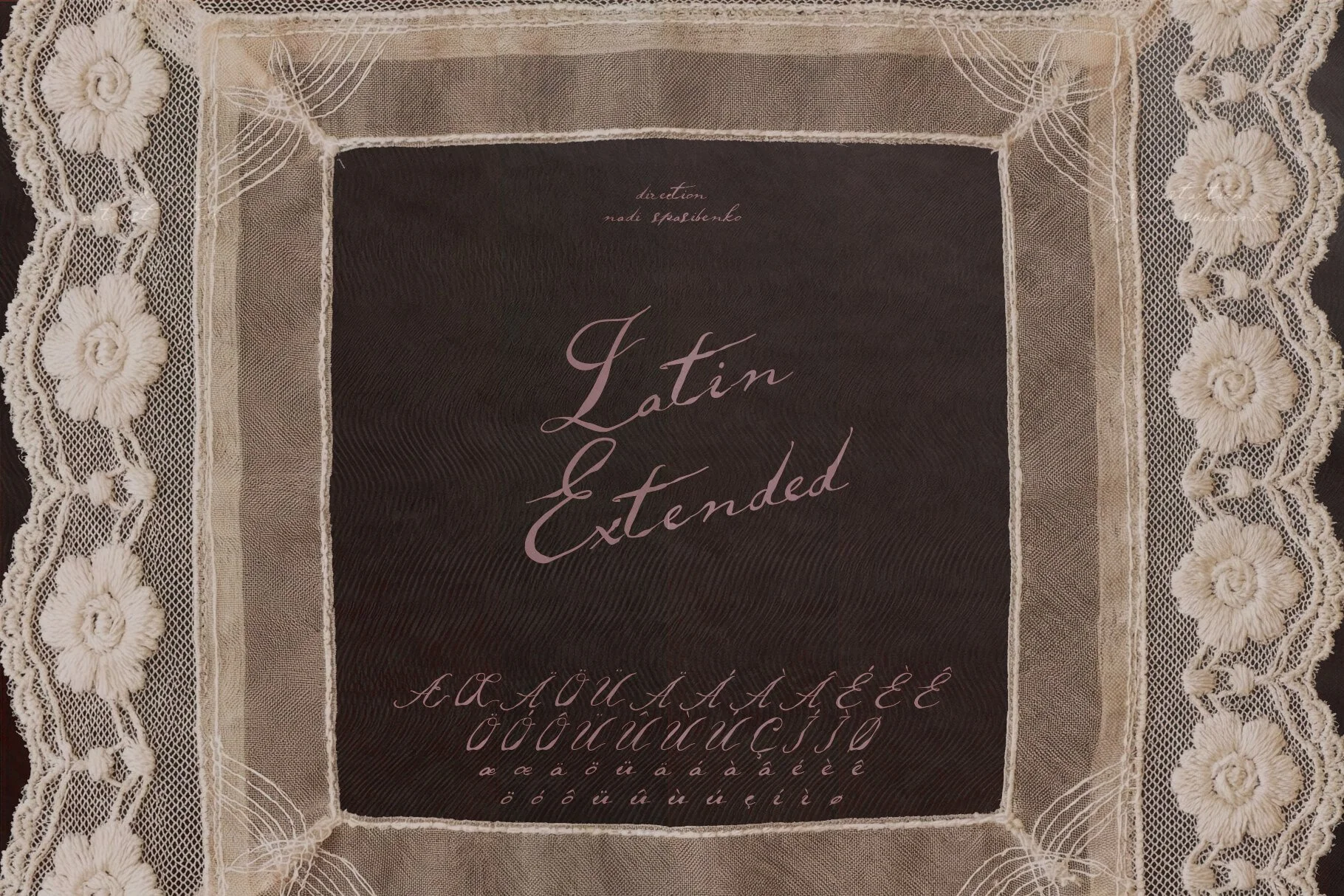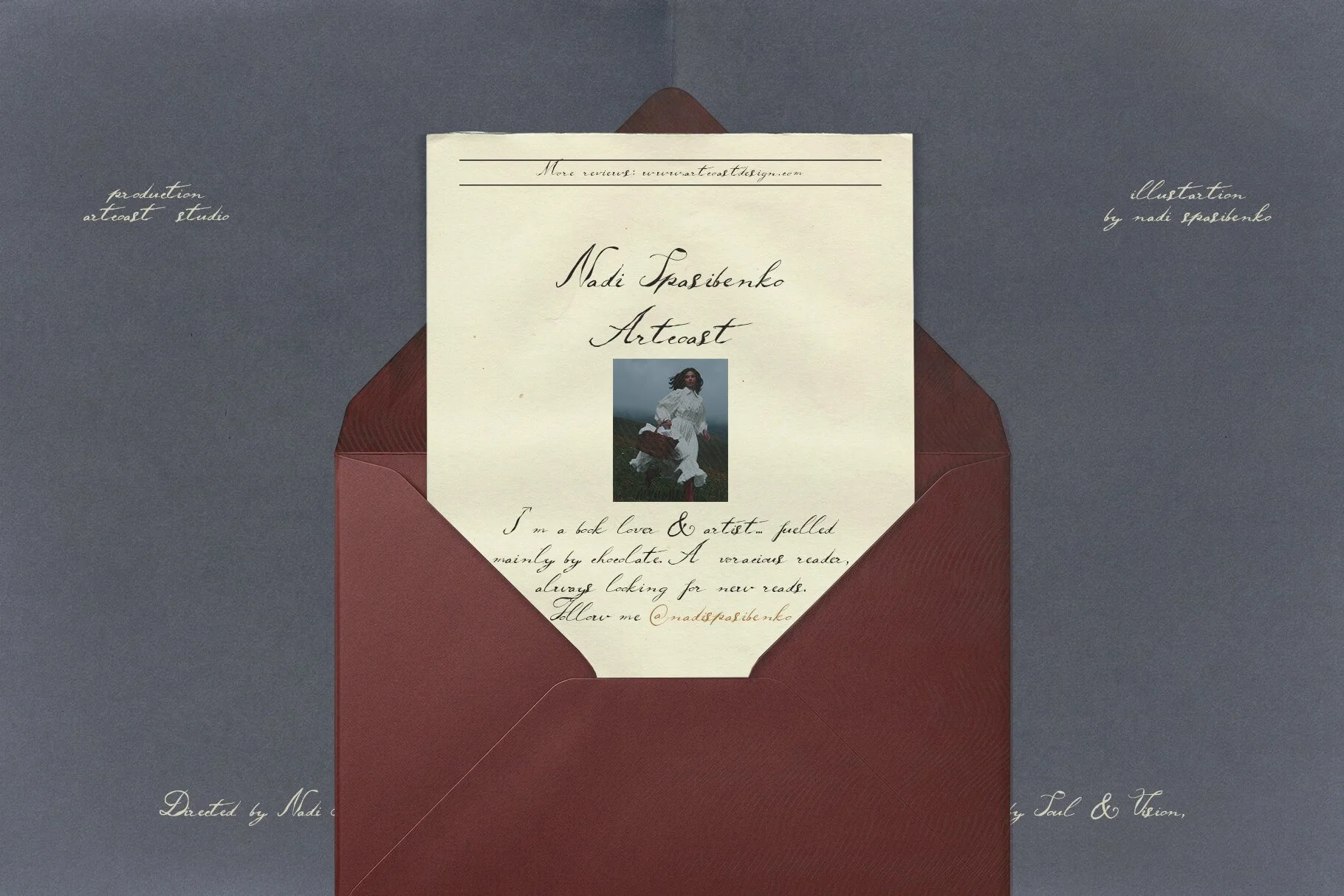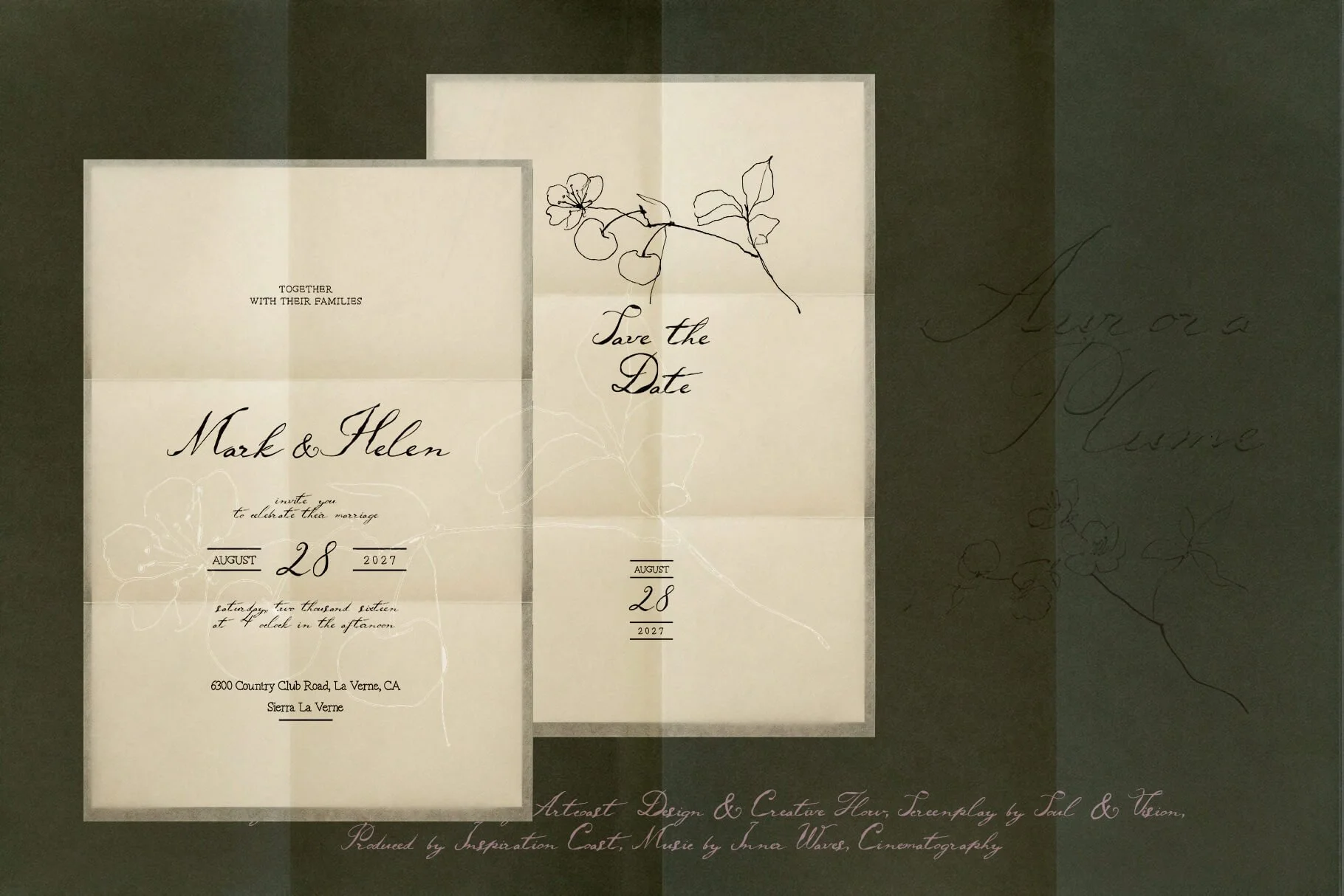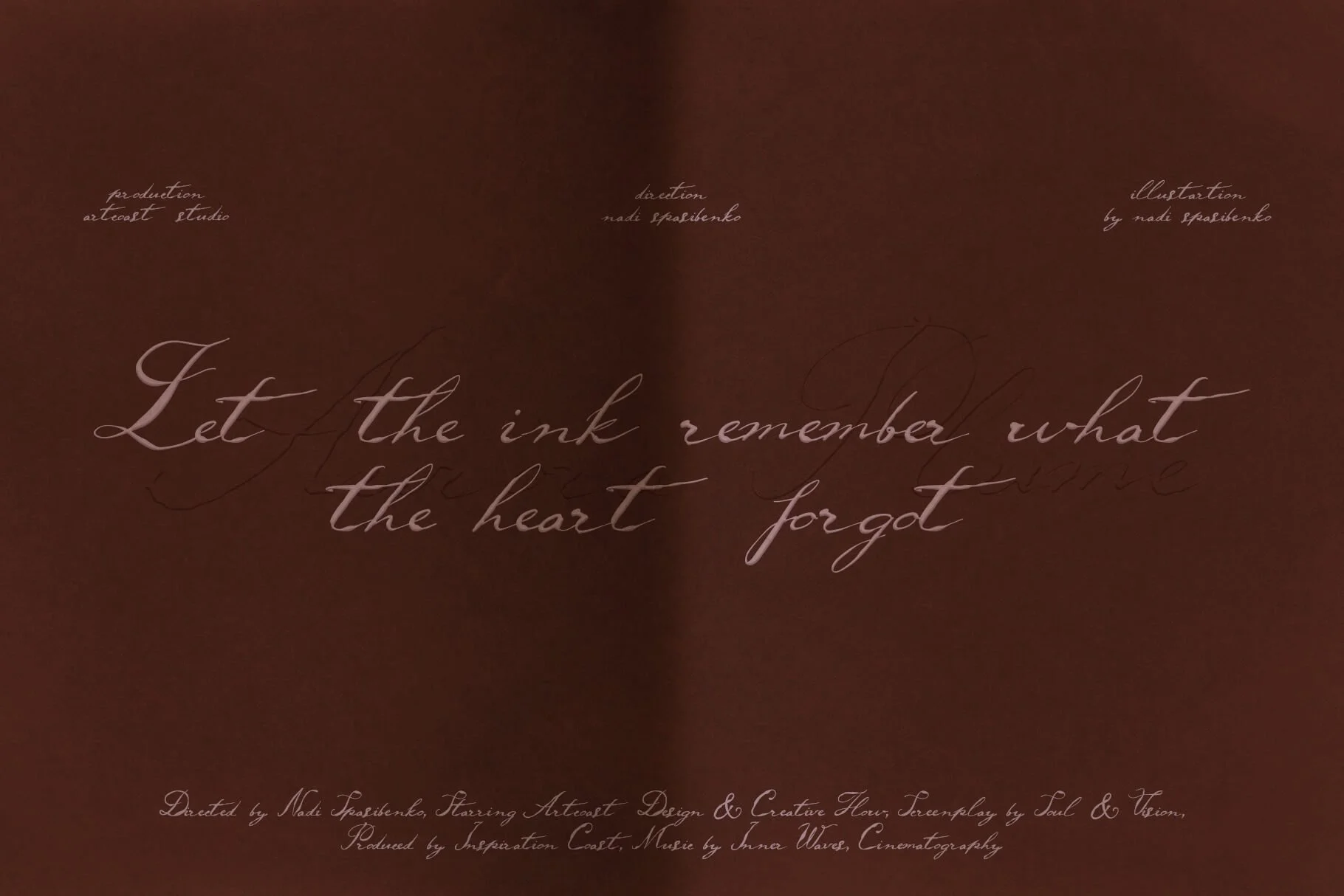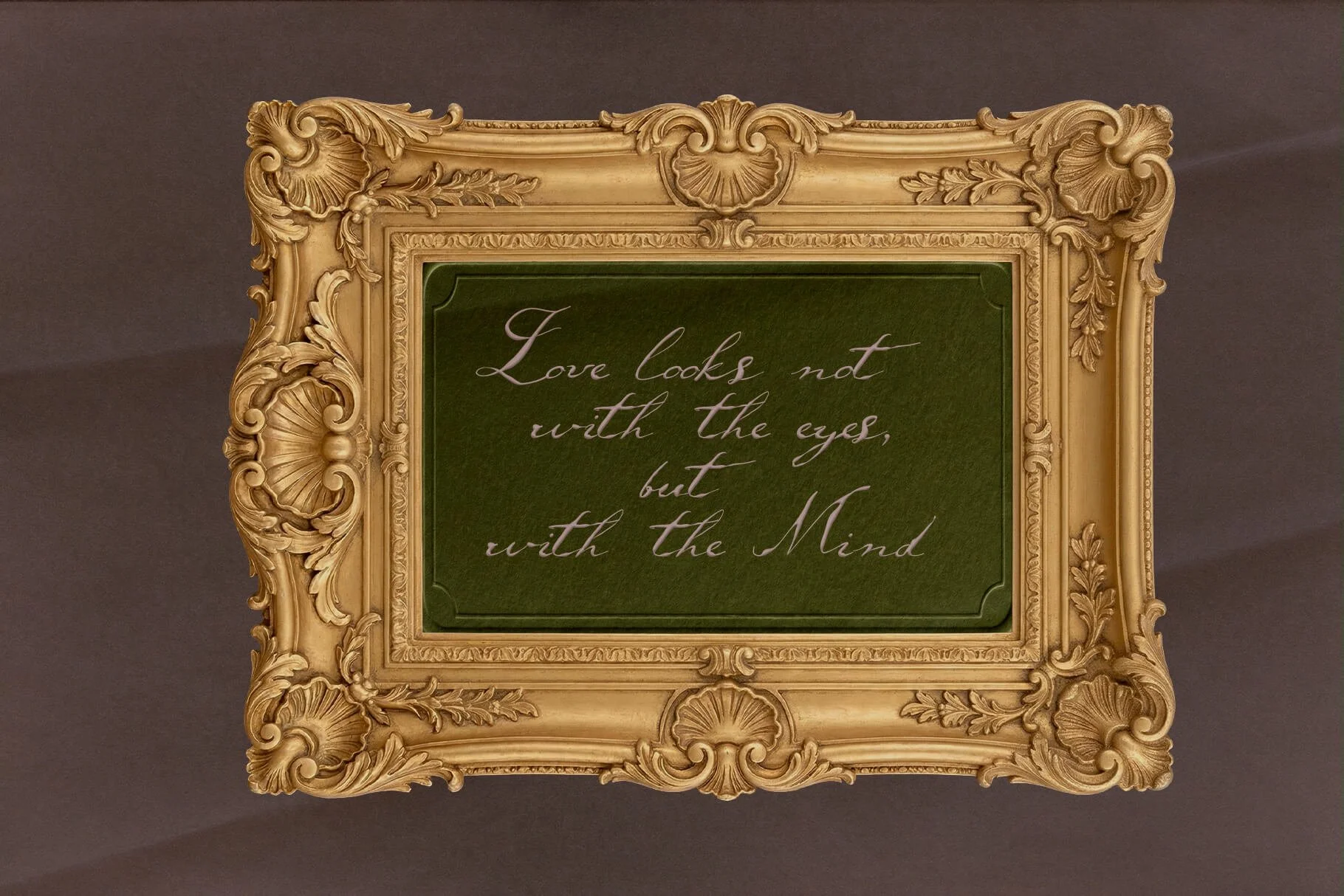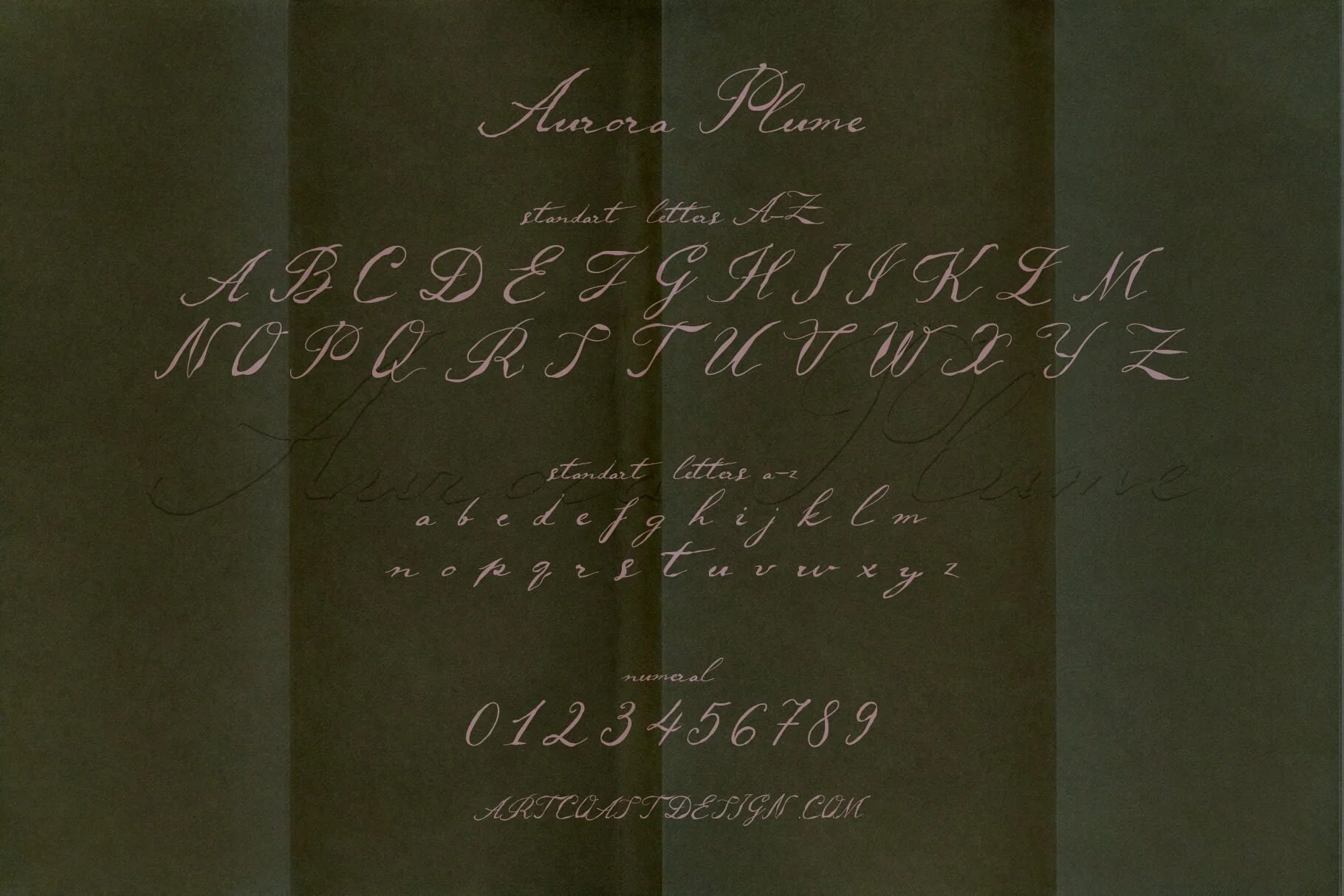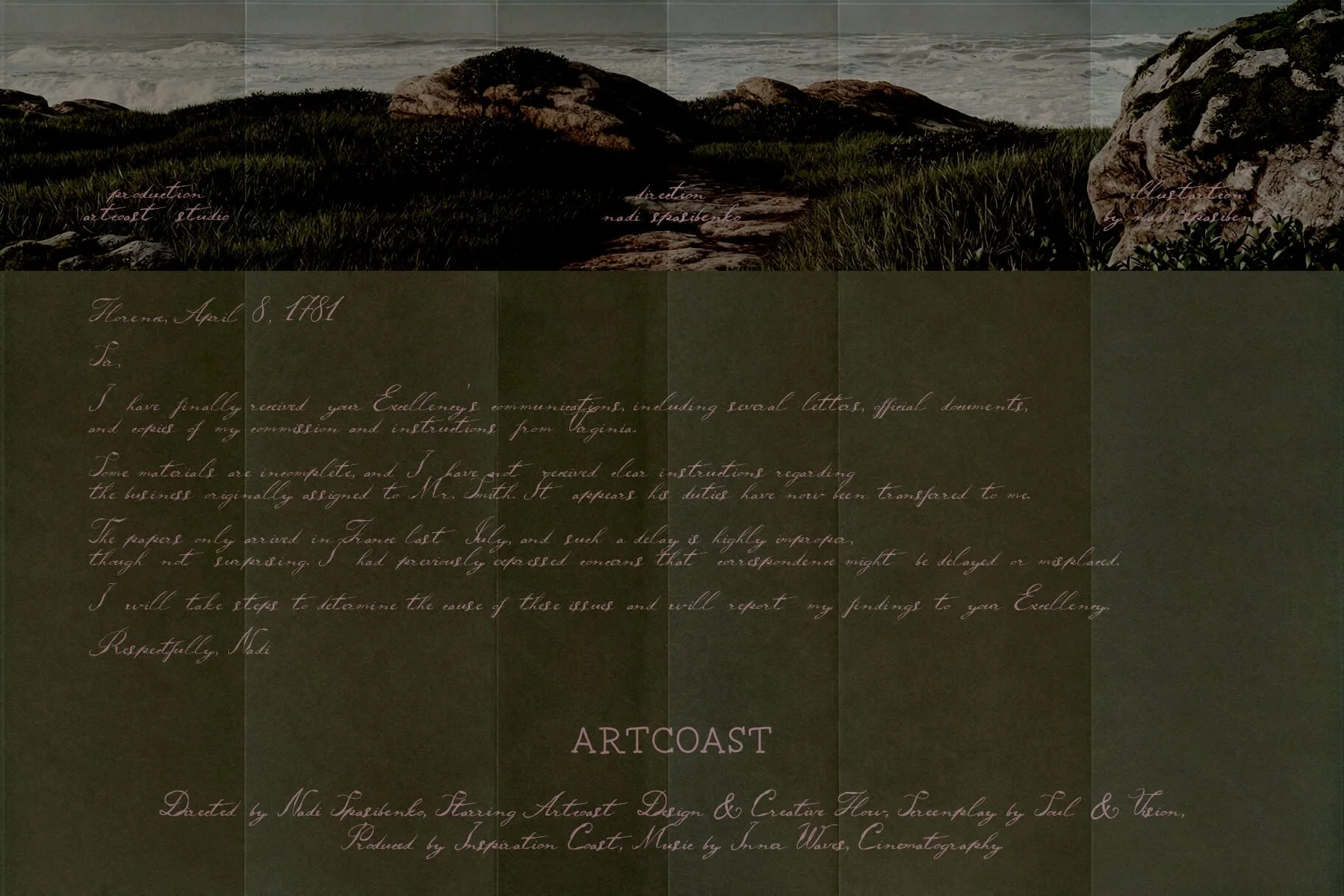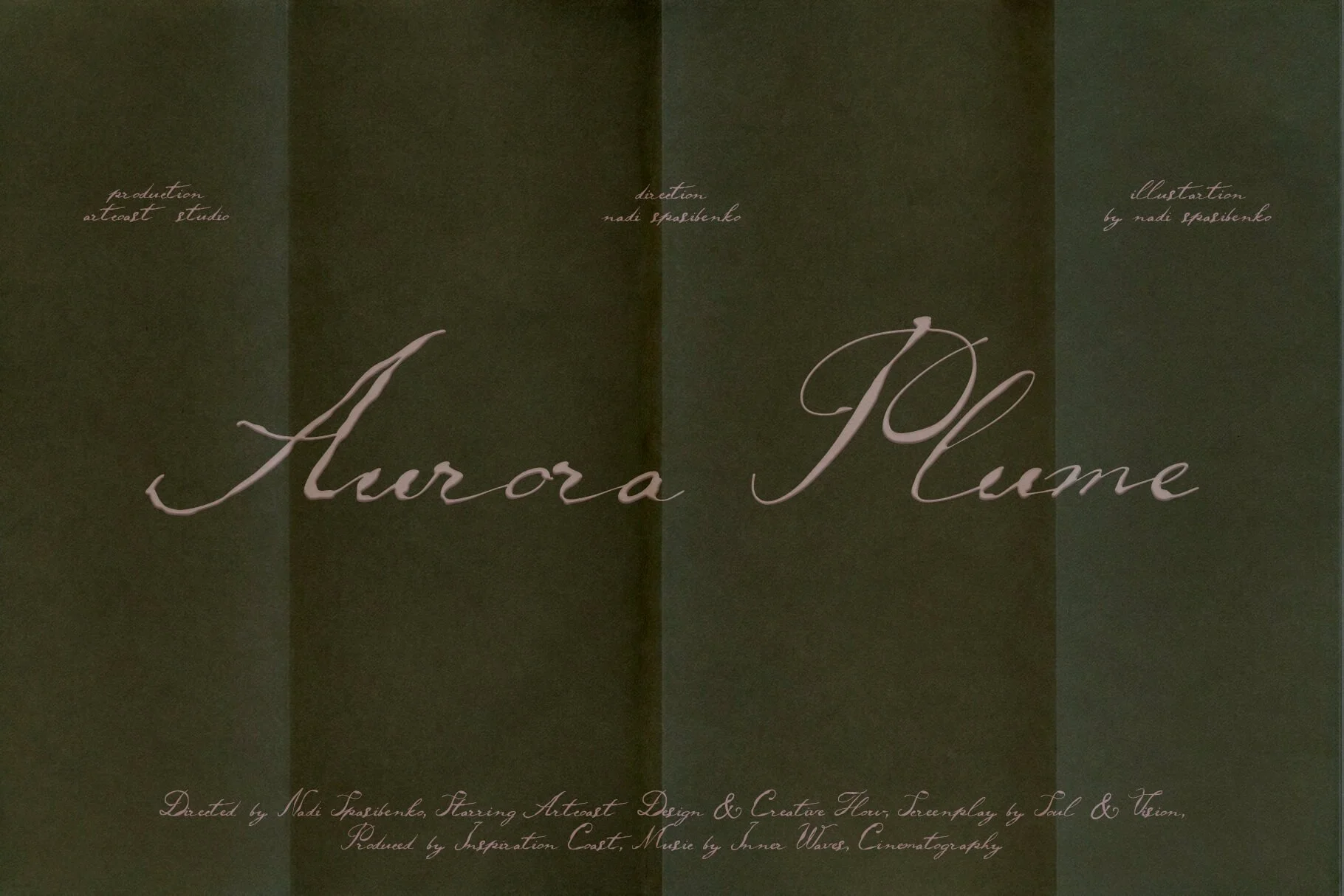
Aurora Plume — Elegant Ink Calligraphy Font
Evoke classic romance and high-end editorial design with Aurora Plume, a sophisticated ink calligraphy font. Inspired by the organic flow of a vintage dip pen, its delicate curves and subtle ink textures bring a tactile, bespoke touch to your digital canvas.
Whether you are crafting a luxury brand identity or ethereal wedding invitations, this elegant script delivers a premium, handwritten feel.
Perfectly Suited For:
Fine Art Wedding Stationery: Invitations, save-the-dates, RSVP cards, and seating charts.
Luxury Branding & Logos: Boutique fashion, artisan cosmetics, and high-end lifestyle labels.
Editorial & Print Design: Magazine layouts, book covers, and elegant signatures.
Digital Aesthetics: Moody Instagram quotes, Pinterest graphics, and sophisticated blog headers.
Premium Packaging: Wine labels, perfume boxes, and artisan chocolate wrappers.
Full Character Set: Uppercase, lowercase, numerals, and extended punctuation.
Multilingual Support: Extensive Latin Extended characters for major European languages.
Design Tip: Pair Aurora Plume with a clean, minimalist sans-serif to create a striking visual hierarchy. It looks exceptionally stunning when combined with gold foil, copper, or deep, moody color palettes (like forest green, terracotta, or sapphire).